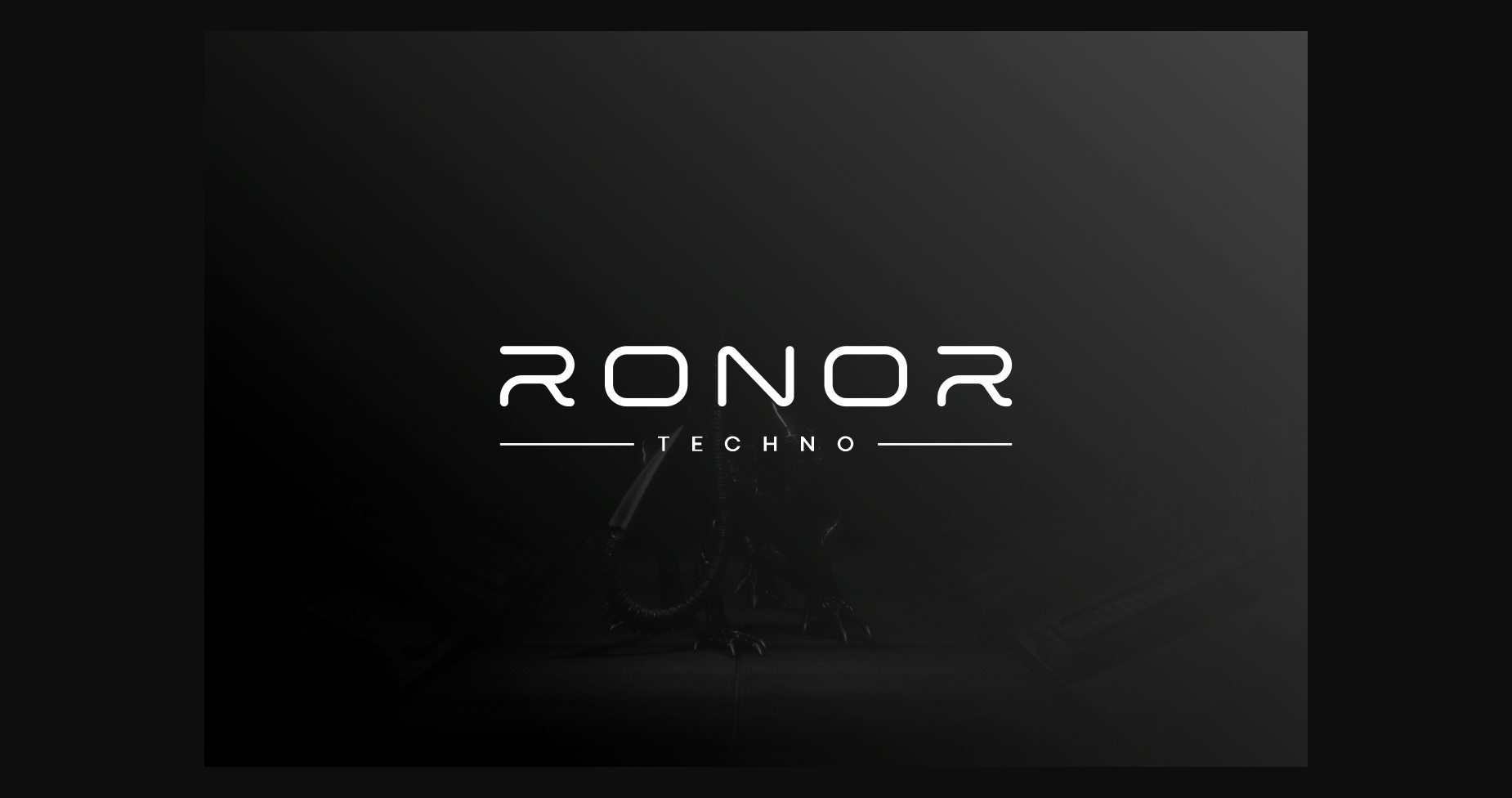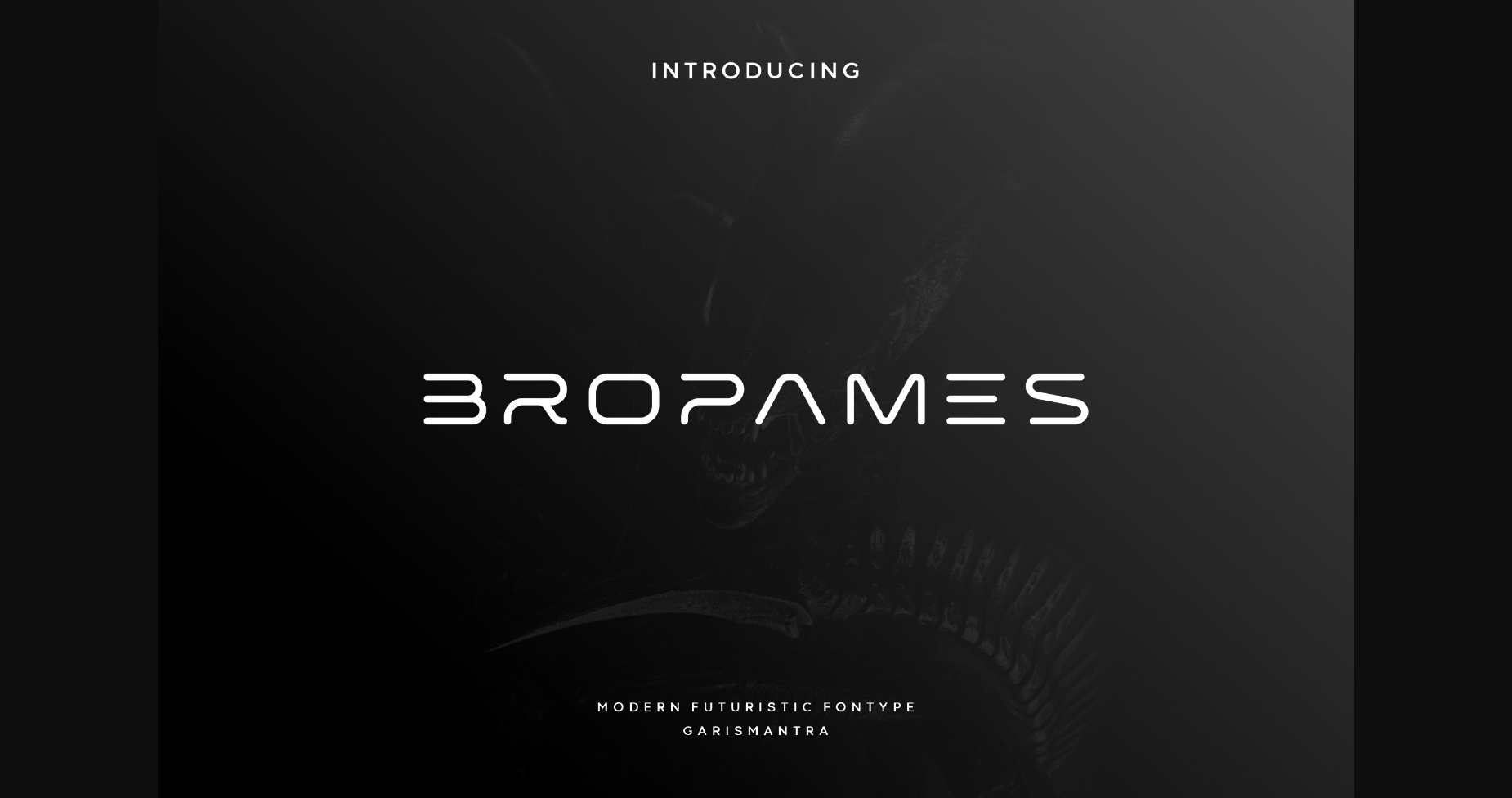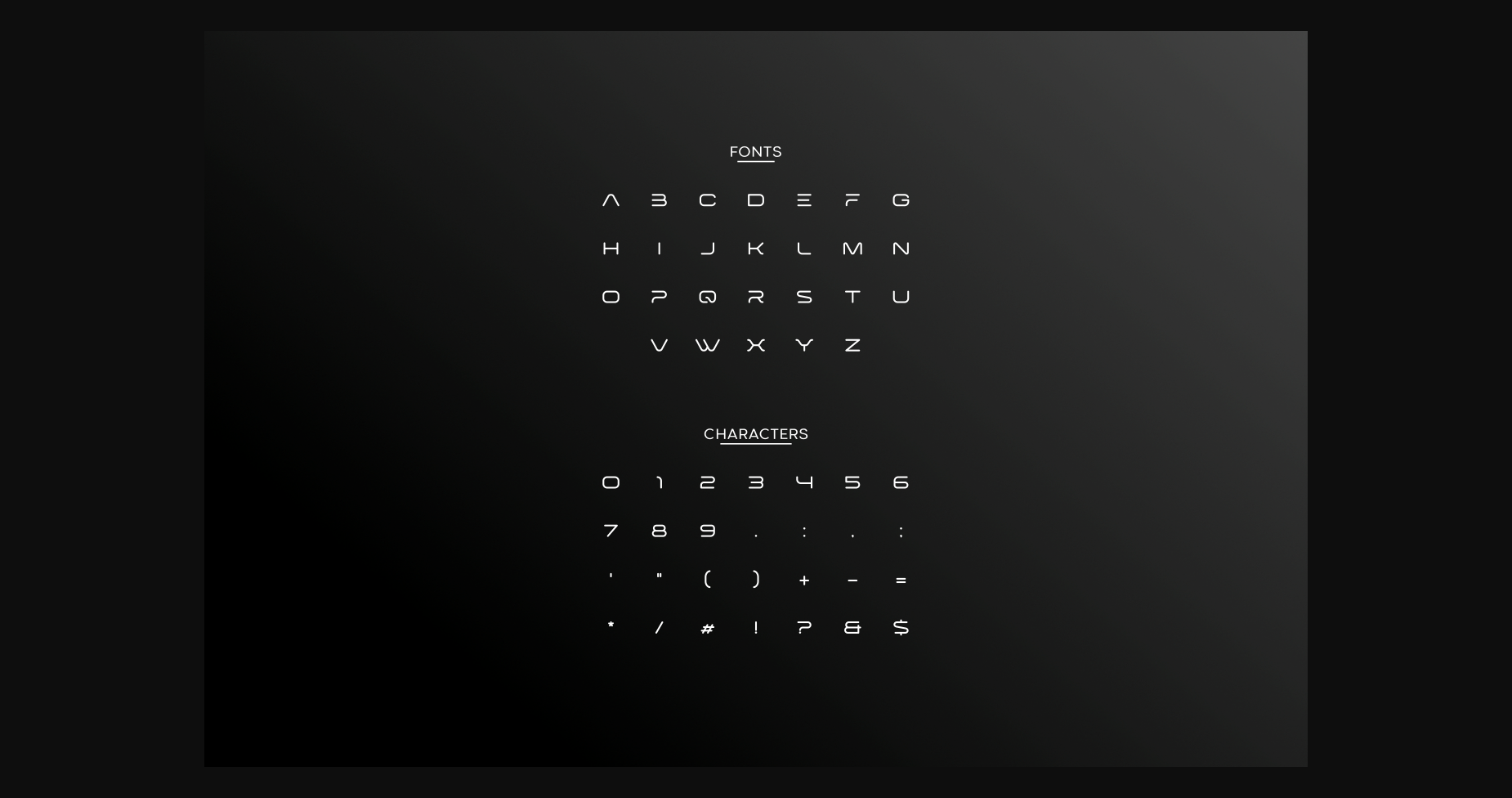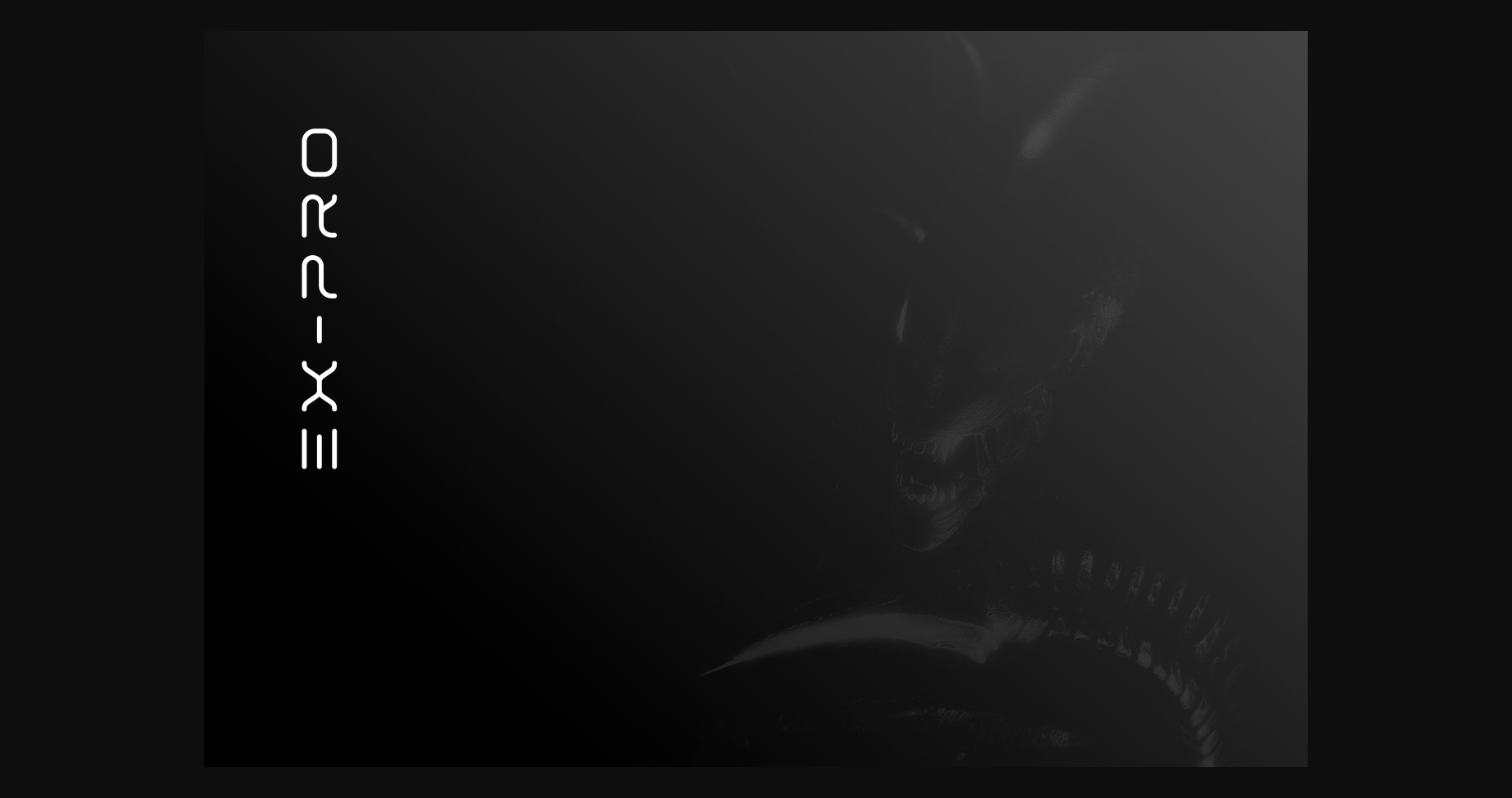
Bropames Font
About Bropames Font
Bropames is a futuristic font, a font inspired by the visual of technology that we can find from logo, sci-fi movies, games, and the present gadgets. Designed with minimalist style and unique letterforms, a perfect choice to use on logos, labels, posters, packaging, books, movies, presentations, games, and much more! Bropames complete with some elegant touch that give your design looks more futuristic and dynamic.